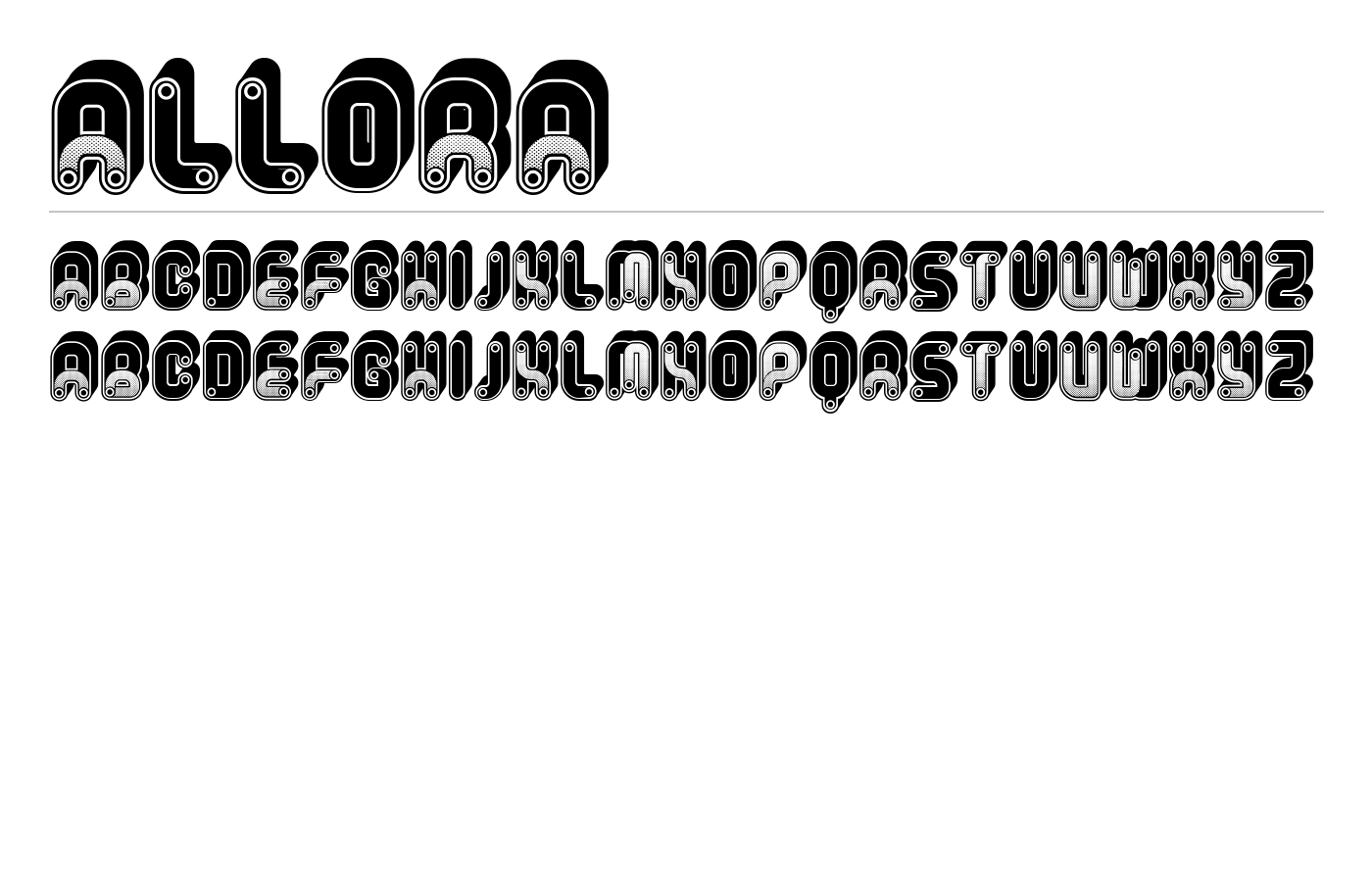
Allora is a bold, decorative sans serif font with a playful, futuristic vibe created by its rounded shapes and intricate internal patterns. Its heavy weight and unique layered details make it ideal for eye-catching headlines, logos, and display uses where a strong and creative statement is desired. This font works especially well in branding and design projects that want to convey innovation and fun with a modern twist.
Allora Font
About Allora Font